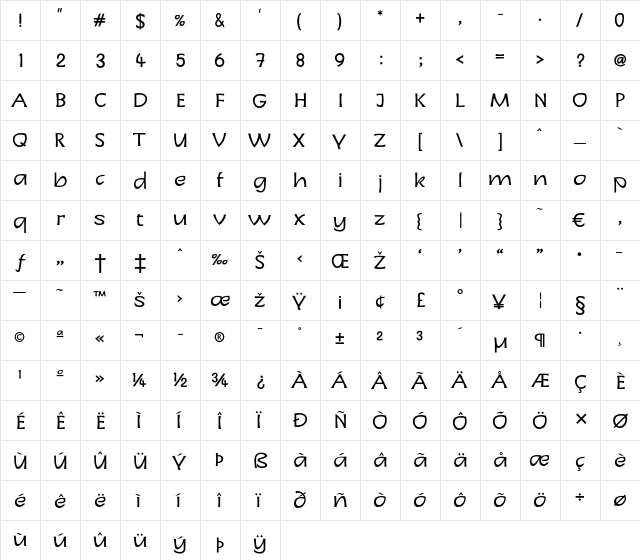
LinotypeCharon Regular
Design Context for LinotypeCharon Typeface
LinotypeCharon is a composed and adaptable typeface that performs quietly and consistently across a wide range of design contexts.
Pro Tip: Pair LinotypeCharon with a font of contrasting weight or personality to build a more expressive typographic hierarchy.